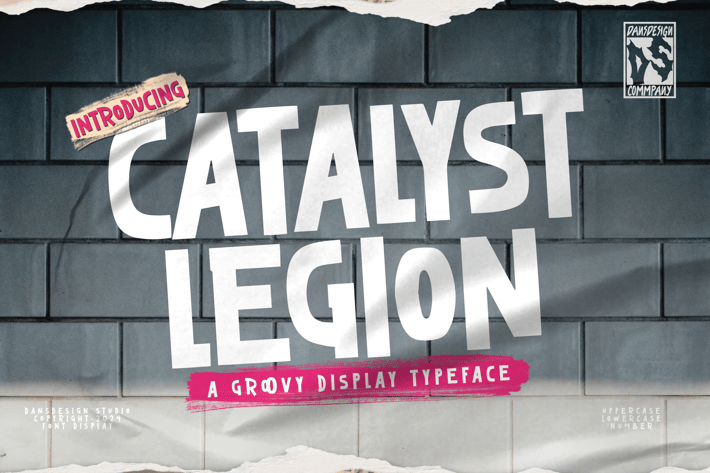
Catalyst Legion Graffiti Marker Y2k Display Font
Catalyst Legion Graffiti Marker Y2k Display Font is a distinct, highly detailed Marker GRAFFITI Y2k Display Font.
It would make a great choice for exquisite retro-urban designs, business branding, logos, Apparel designs, and more.